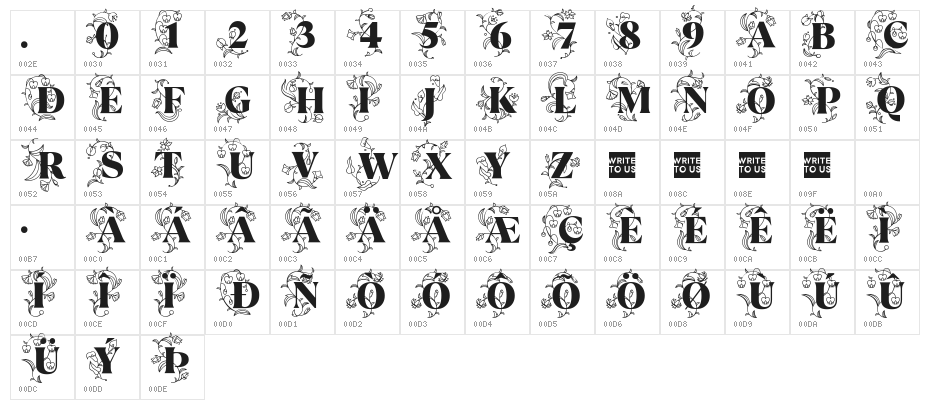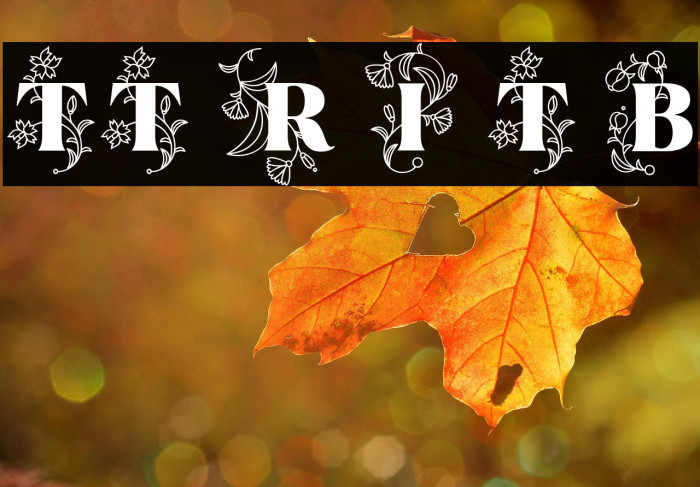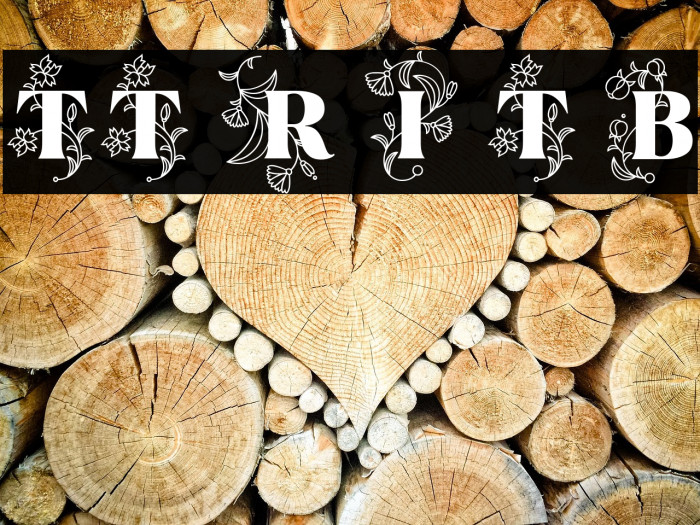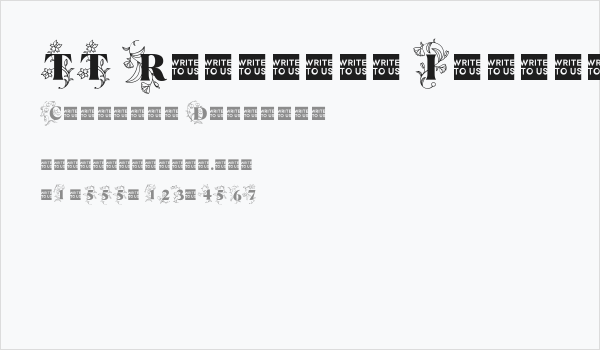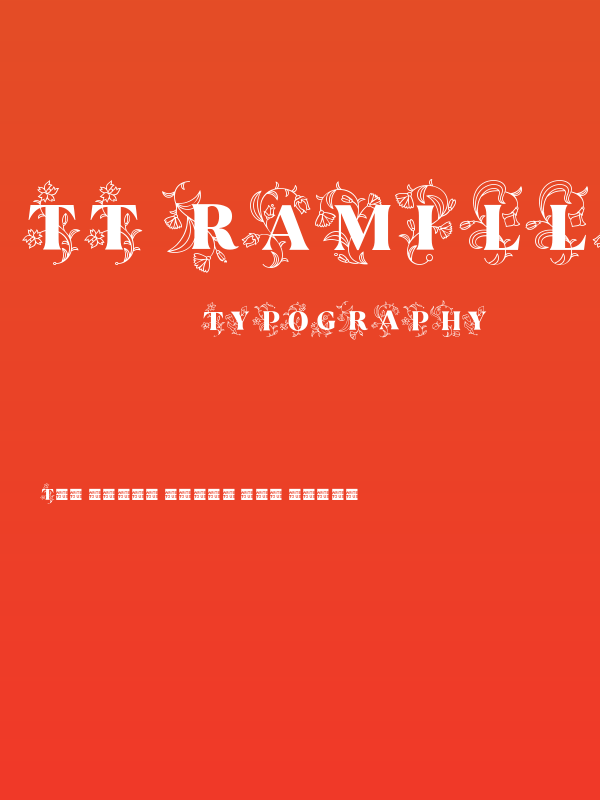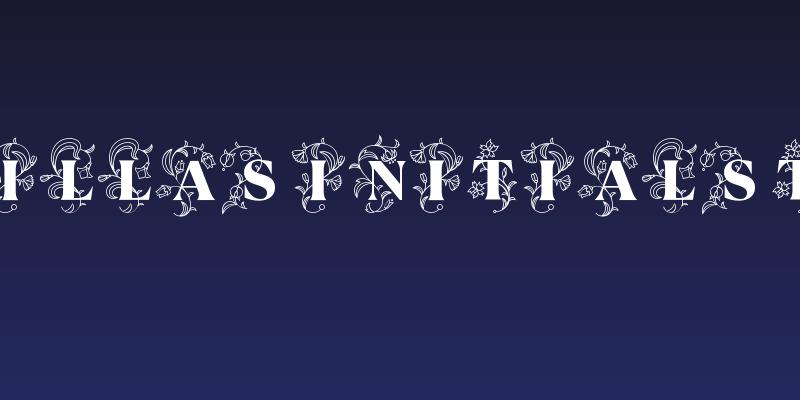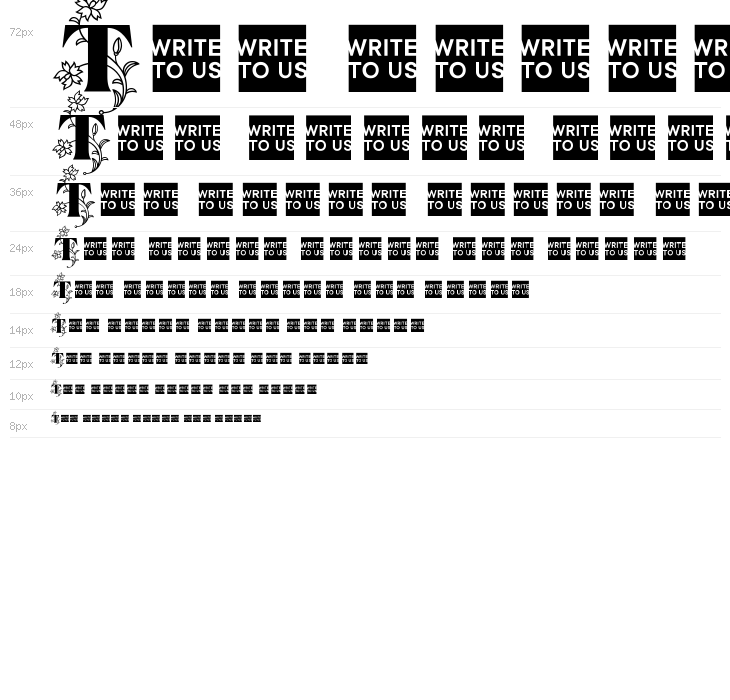
TT Ramillas Initials Trl Blc Font
TT Ramillas Initials Trl Blc Description
This font is a decorative and ornate typeface featuring intricate floral and vine embellishments around each character. The uppercase letters are bold and prominent, with each character adorned with detailed botanical motifs that give it a unique and artistic appearance. The numbers follow the same decorative style, making them stand out with their elaborate designs. The overall aesthetic is reminiscent of vintage or classical styles, suitable for projects that require a touch of elegance and sophistication.
| Overall Style | Vintage, Decorative |
| Proposed Projects | Ideal for wedding invitations, luxury branding, vintage-themed posters, and decorative book covers. |